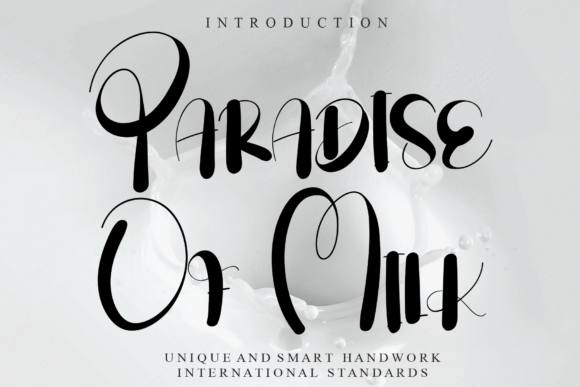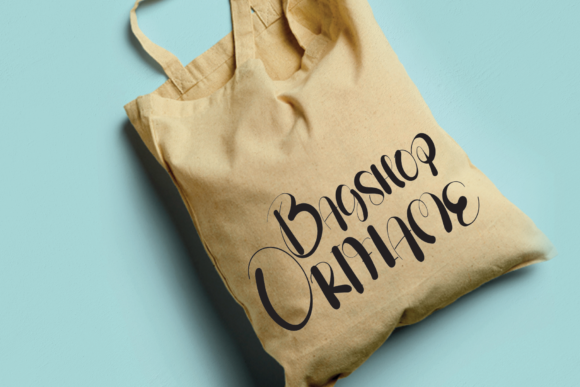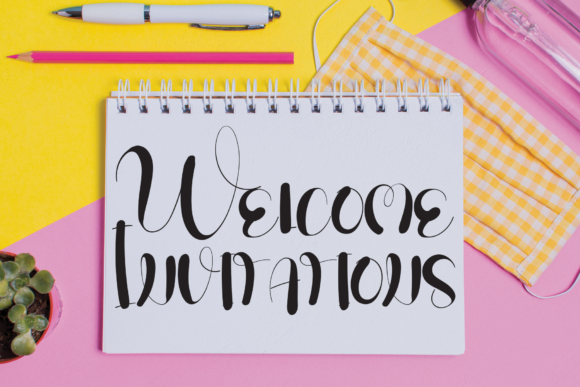
Paradise of Milk Font
About Paradise of Milk Font
Paradise of Milk is a unique handwritten font. Use it for any design projects that require a charming appearance!